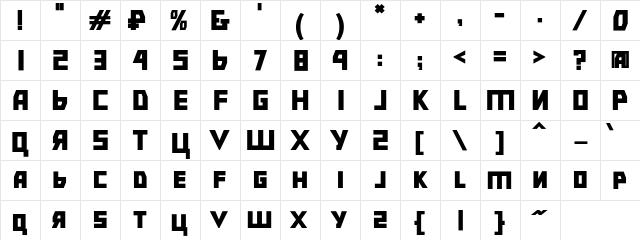
Bolshevik Blk
Design Context for Bolshevik Typeface
Bolshevik is a composed and adaptable typeface that performs quietly and consistently across a wide range of design contexts.